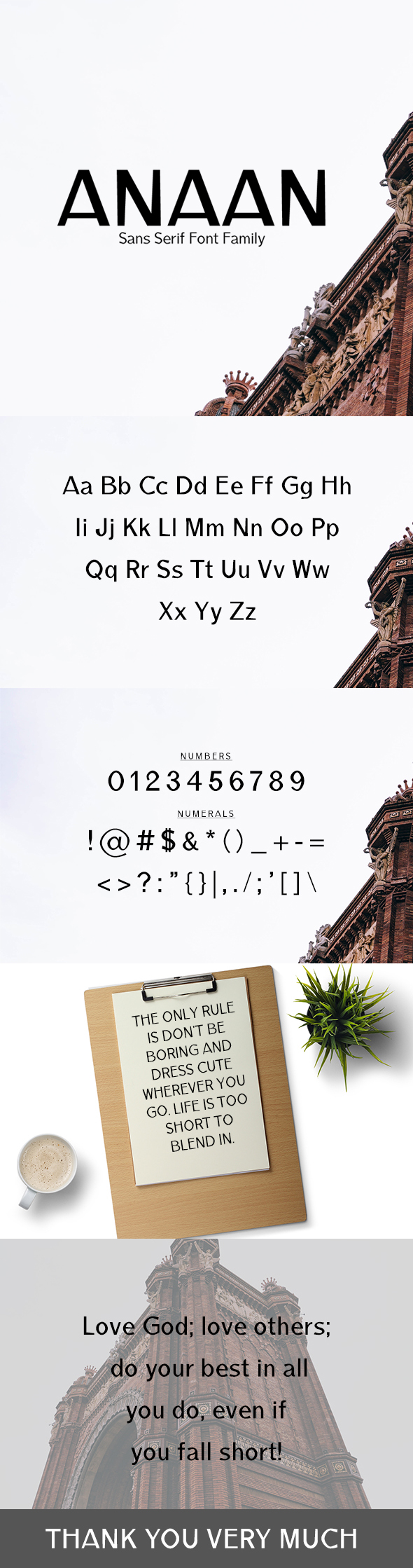
Anaan sans serif font is a set of 5 weights and it is good for making creative displays and it has sober touch. It’s a lovely and unique serif font in our store, allowing you to make each word look completely stylish! It Suits best for modern / clean designs, logos, headlines, banners and templates etc. It looks gorgeous in all caps with a wide-set spacing if you want to try a classy look, or beautiful on its own in capital and lowercase letters for something completely timeless.